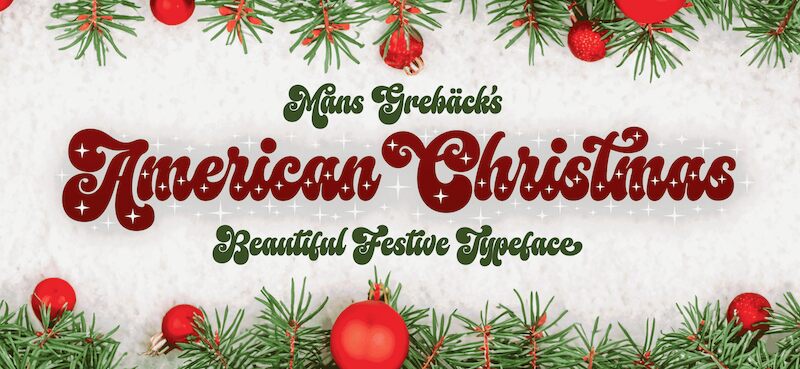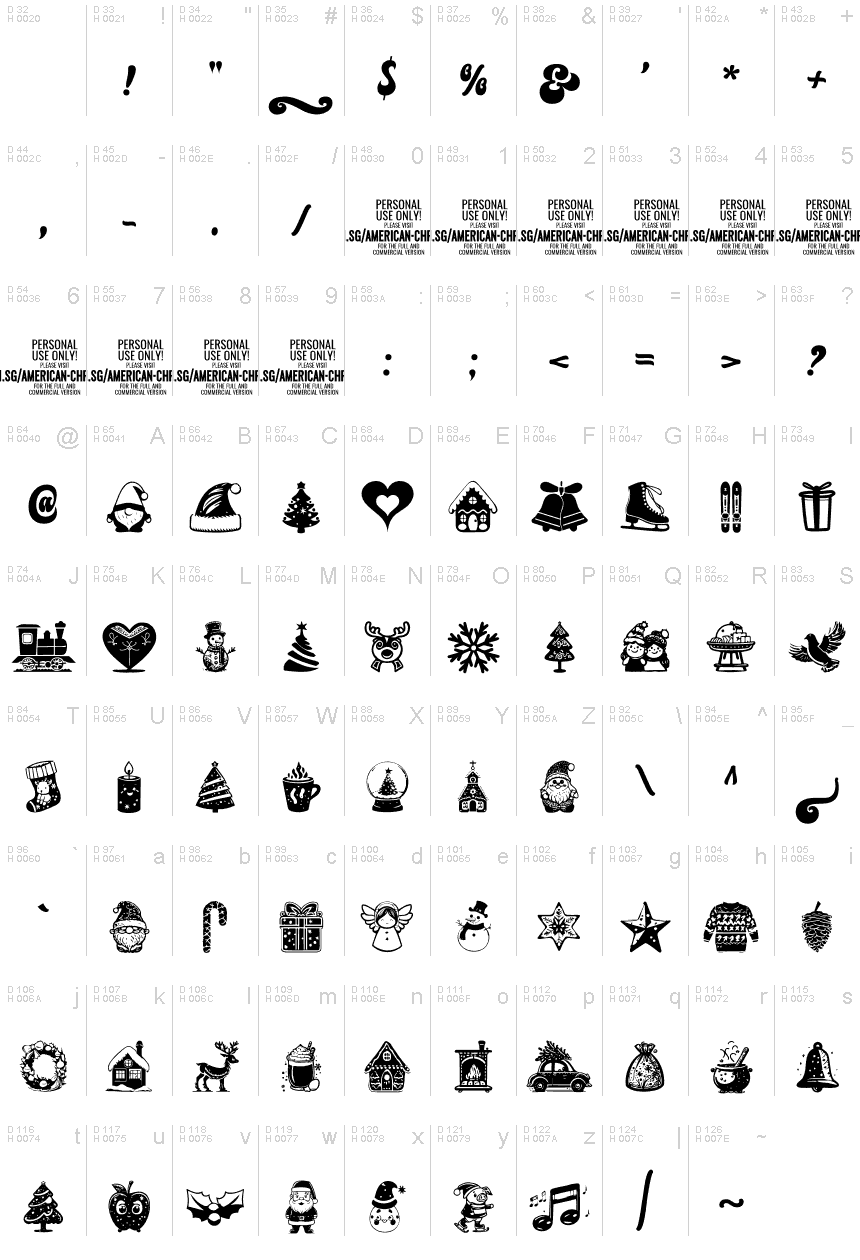
American Christmas Symbols Regular
Embrace the holiday spirit with American Christmas Symbols, a festive font creation by the talented Mans Greback. This playful dingbat addition to the American Christmas family adds a sprinkle of retro charm to your seasonal designs.
Each symbol captures the essence of yuletide joy, making it perfect for holiday cards, party invitations, and any project that calls for a dash of cheer. With its unique blend of nostalgia and whimsy, American Christmas Symbols transforms ordinary text into an enchanting winter wonderland narrative.
Let your creativity soar on the wings of these merry motifs!
Use parenthesis symbols () [] {} to make stars around any word.
Example: {Xmas}[Songs]
Use underscore _ after any word to make a swash.
Example: Santa_
Multiple underscores makes longer tails.
Example: Yuletide____